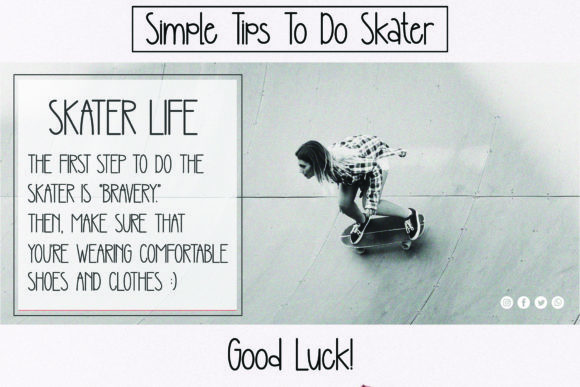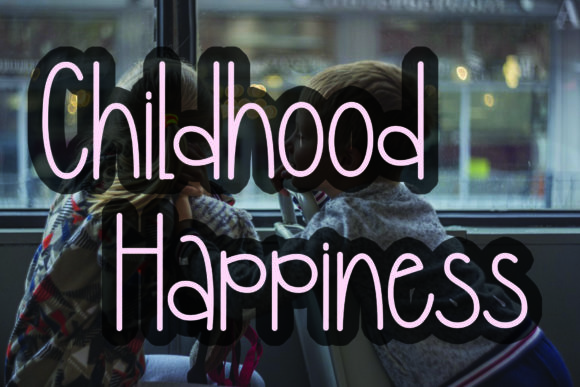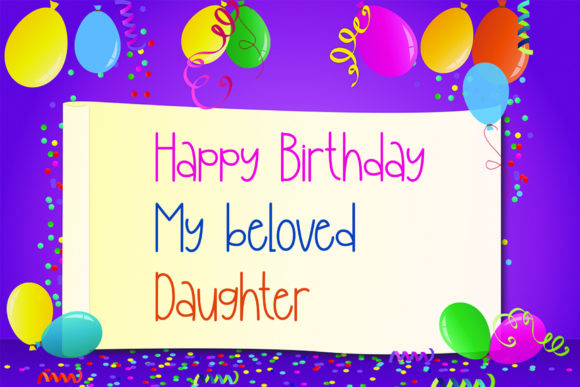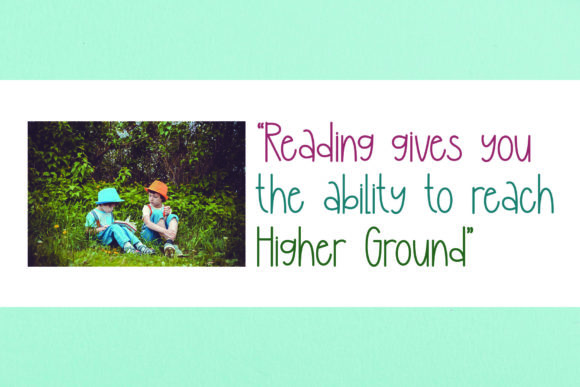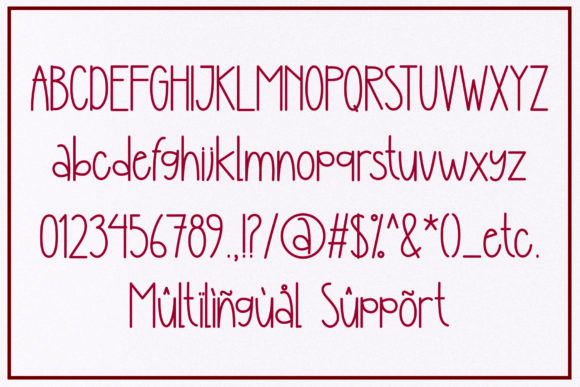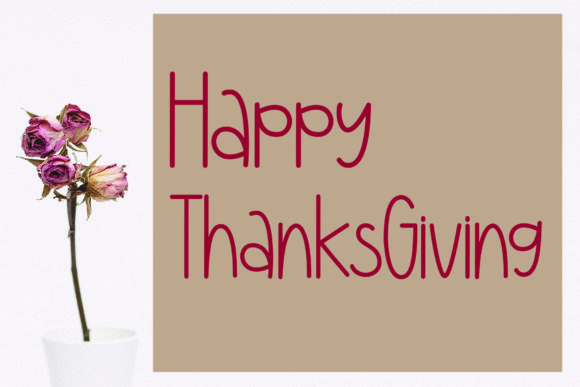
Introduction to Happy Children Font Font
Fonts play a crucial role in design, and the Happy Children Font font is a typeface that brings both character and versatility to any project. Whether you’re working on a branding project, a website, or a print design, the Happy Children Font font offers a unique style that can elevate your work.
Happy Children is a cute and thin lettered handwritten font that can be used for all chalkboard quotes or teaching material.
Its authentic look will add a personal and realistic feel to your designs .
Key Features of Happy Children Font Font
Why Choose Happy Children Font Font?
The Happy Children Font font is more than just a typeface – it’s a design tool that helps you communicate your message with style and clarity. Its unique character set and versatile design make it suitable for a wide range of applications, from elegant invitations to bold headlines.
With its carefully crafted letterforms and balanced proportions, the Happy Children Font font ensures readability and visual appeal across all mediums.
What makes Happy Children Font font special?
The Happy Children Font font stands out with its unique design, exceptional readability, and versatility across various design applications.